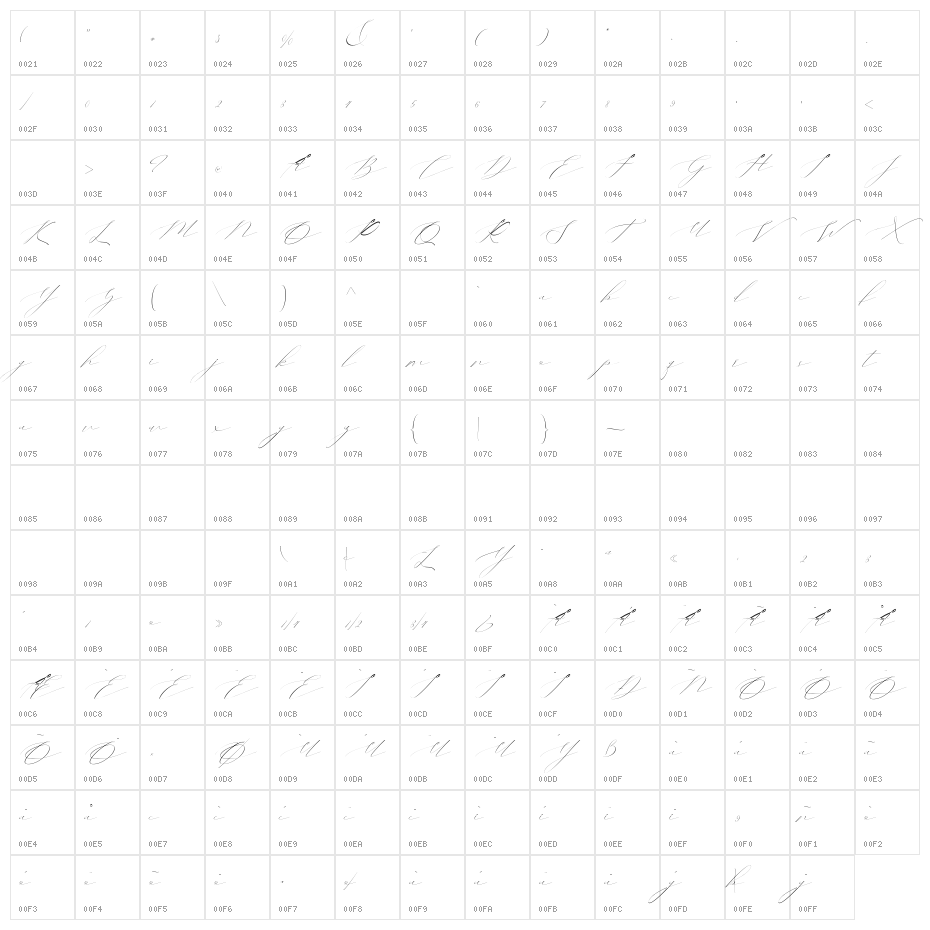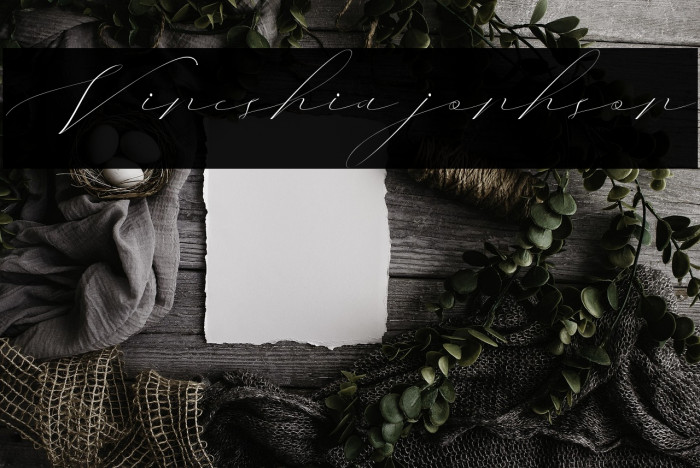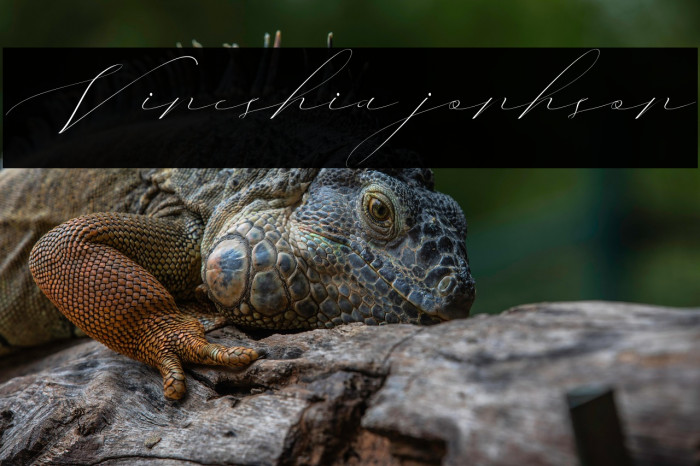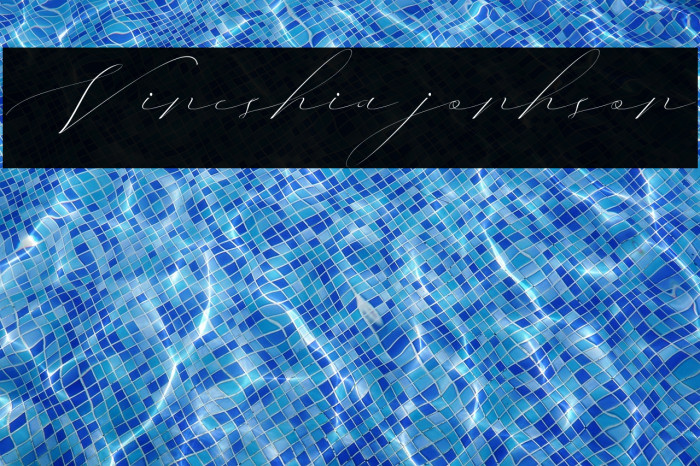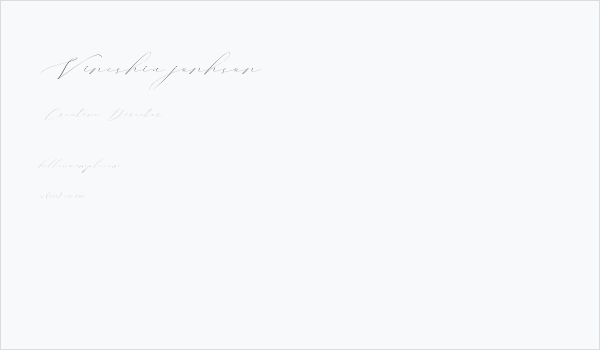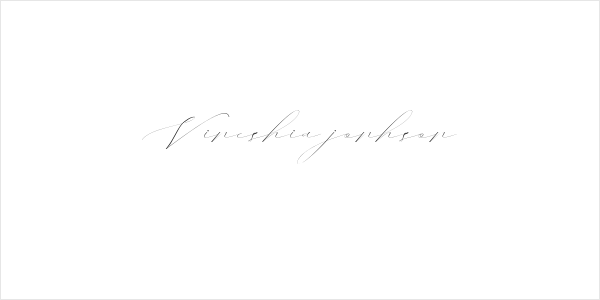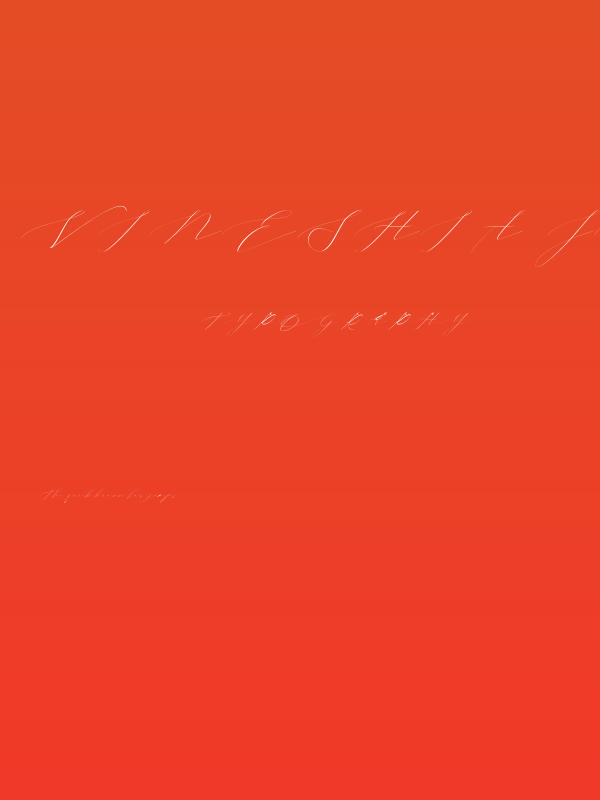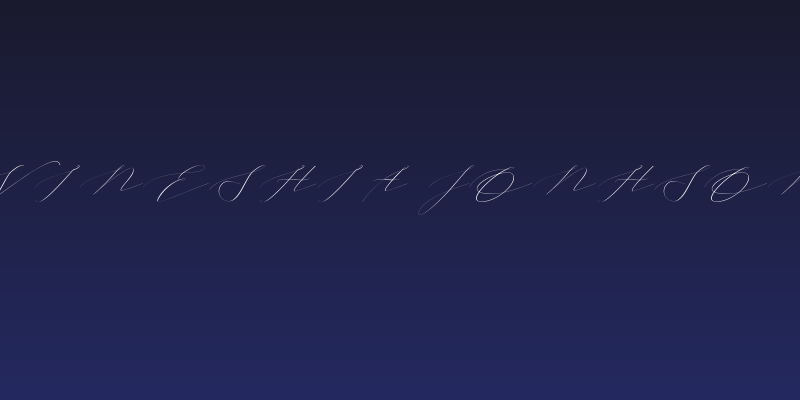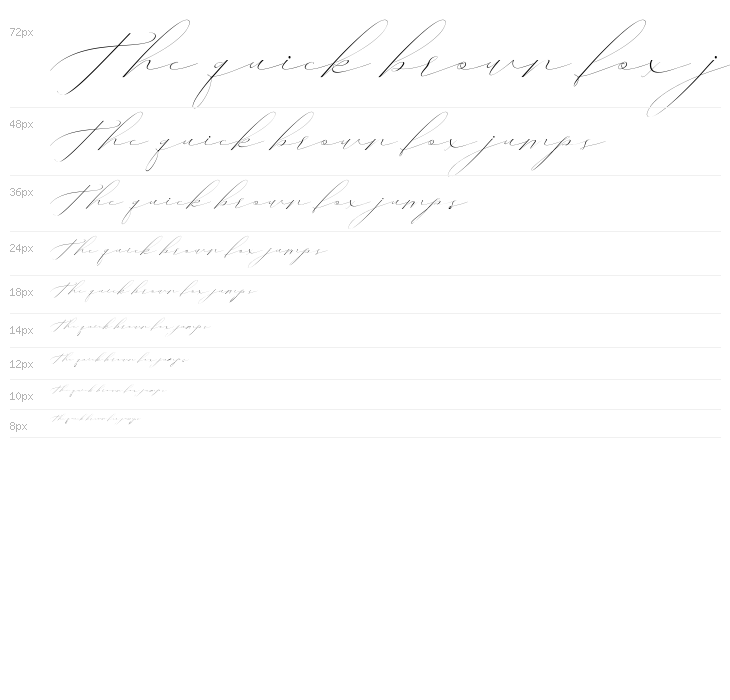
Vineshia jonhson Font
Vineshia jonhson Description
This elegant script font features a flowing, cursive style with delicate, thin strokes and graceful curves. The characters are interconnected, creating a seamless and fluid appearance. The uppercase letters are slightly larger and more ornate, while the lowercase letters maintain a consistent and harmonious flow. The numerals are slender and align well with the overall aesthetic. Special characters are designed with the same attention to detail, enhancing the font's sophisticated look. This font exudes a sense of elegance and refinement, making it ideal for formal and decorative applications.
Overall StyleElegant
Use CaseLogos, Invitations, Decorative text
Proposed ProjectsIdeal for wedding invitations, elegant branding, personal stationery, and high-end product packaging.